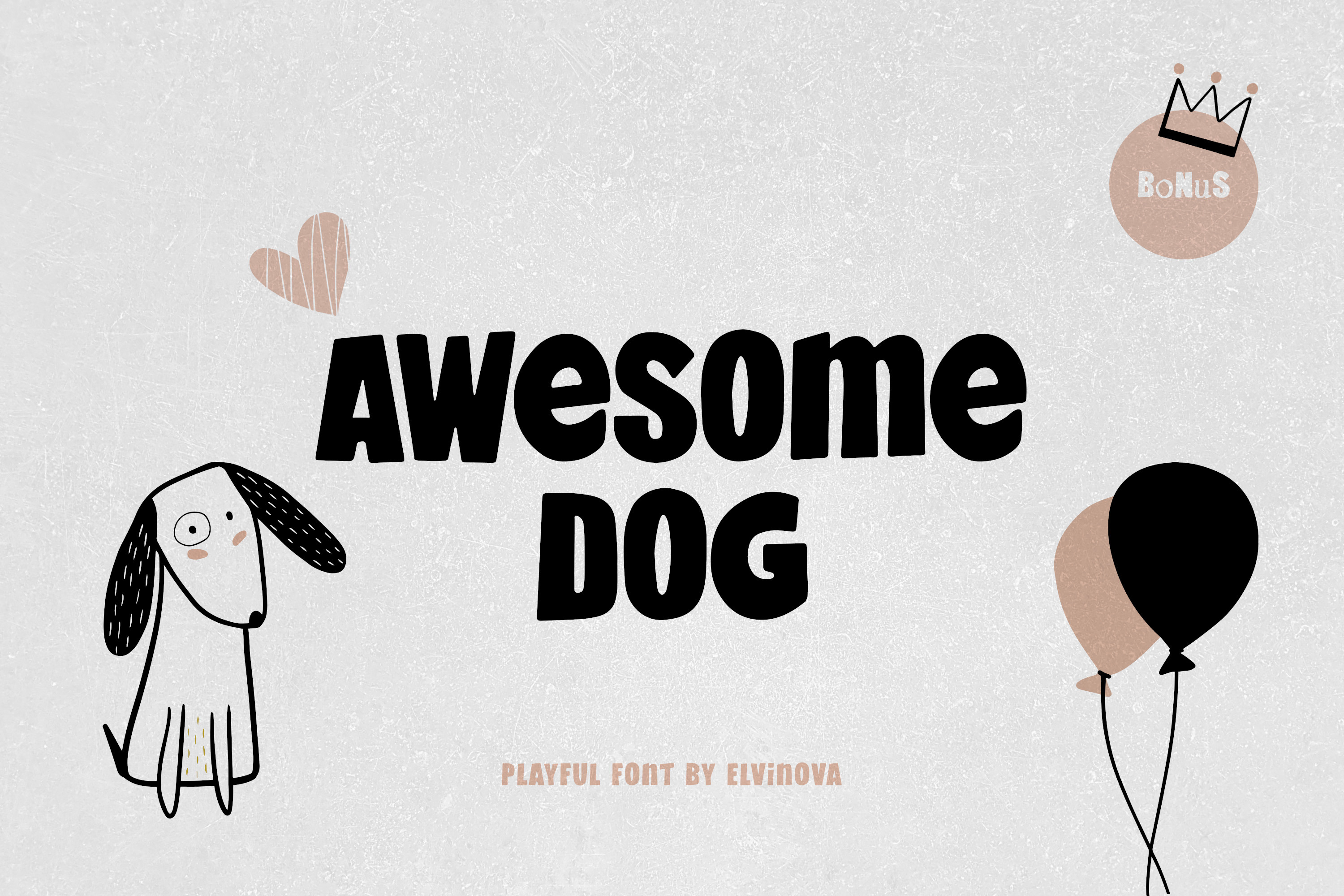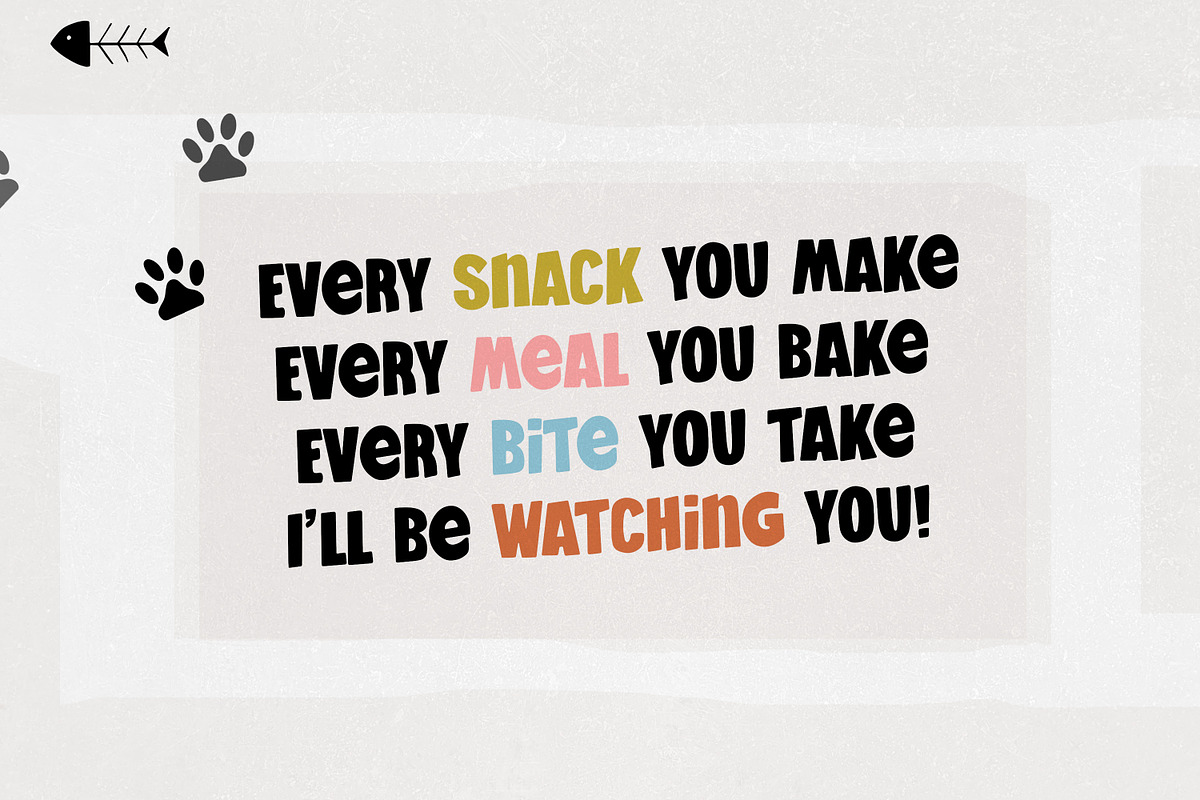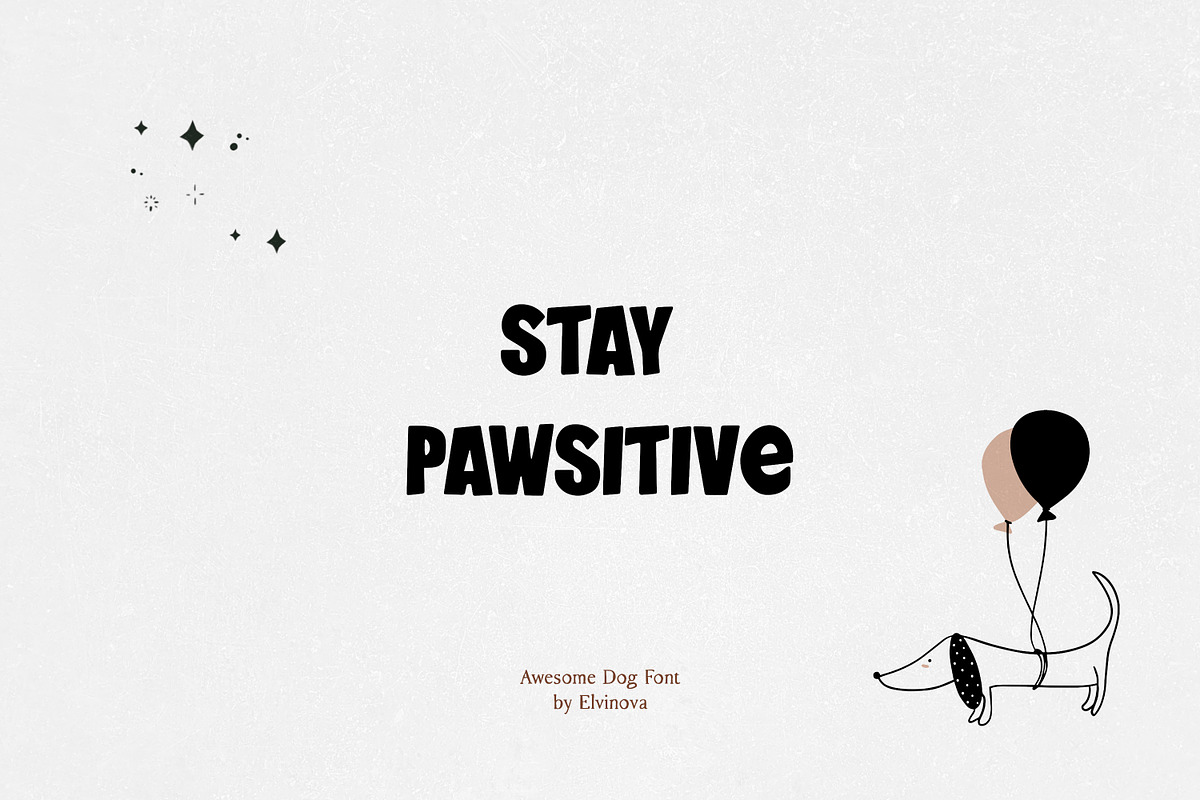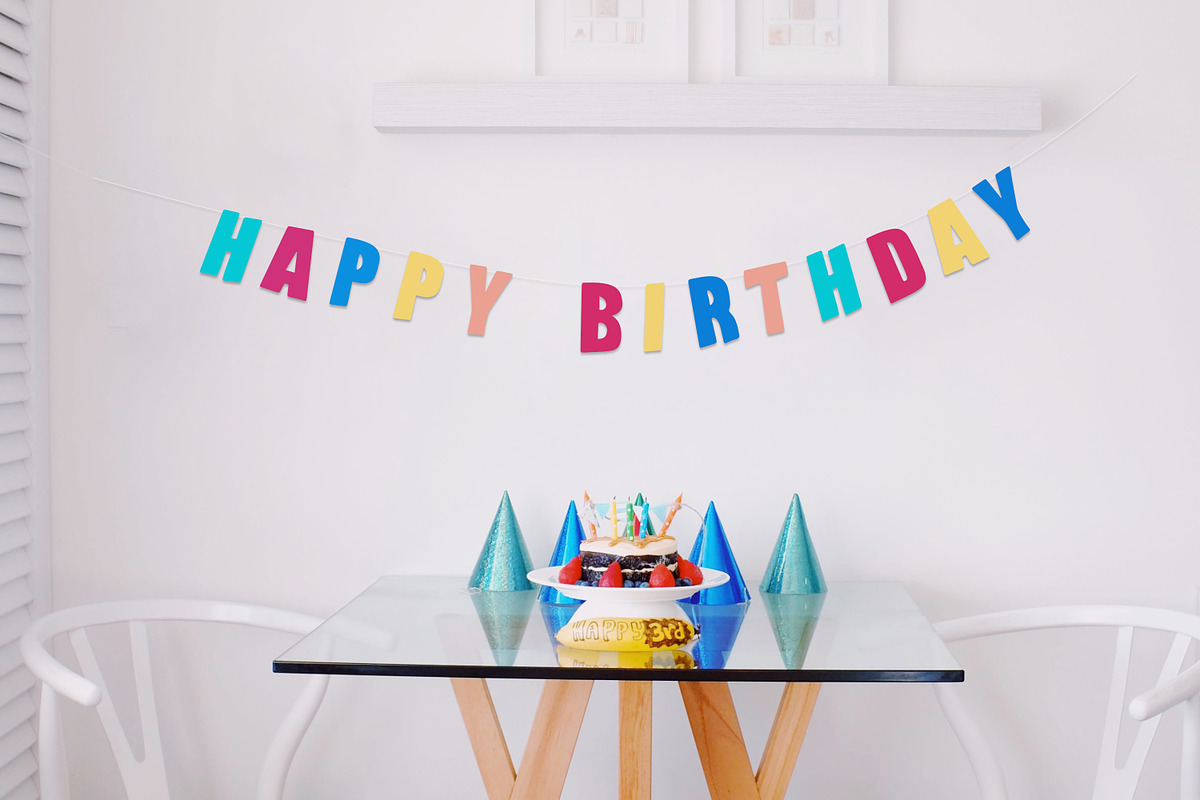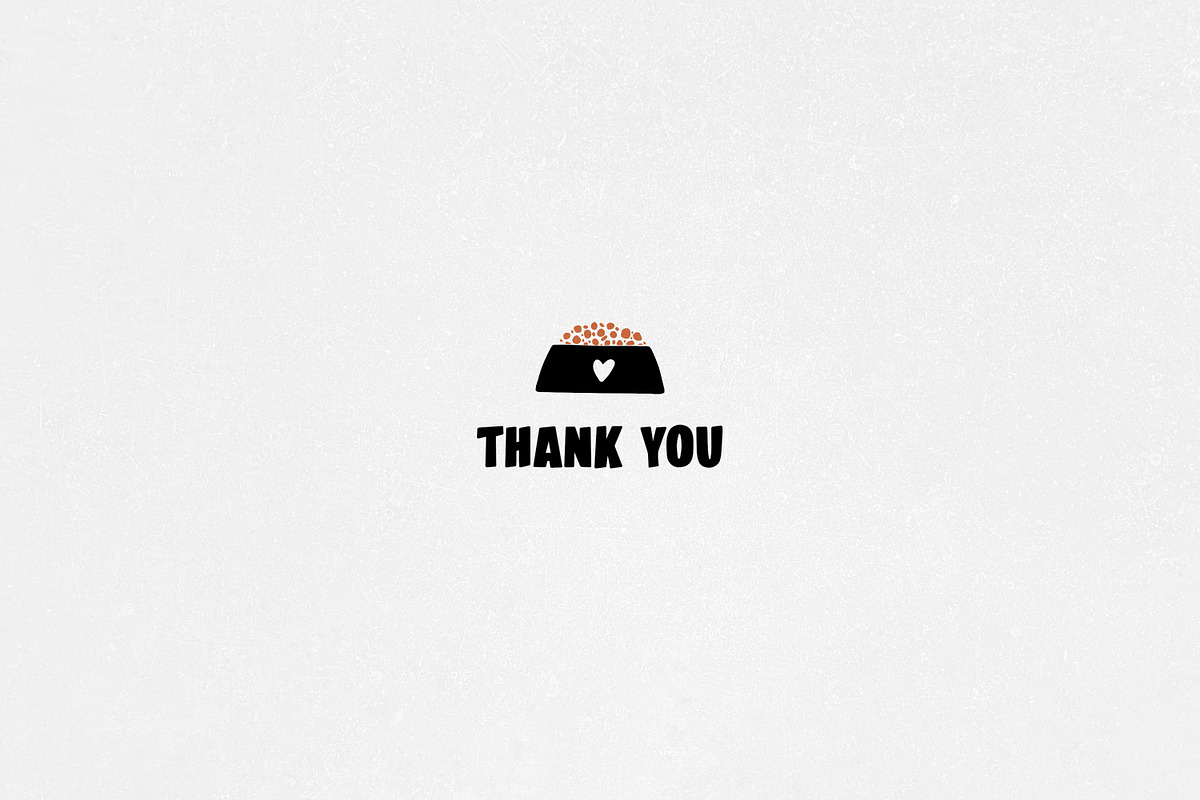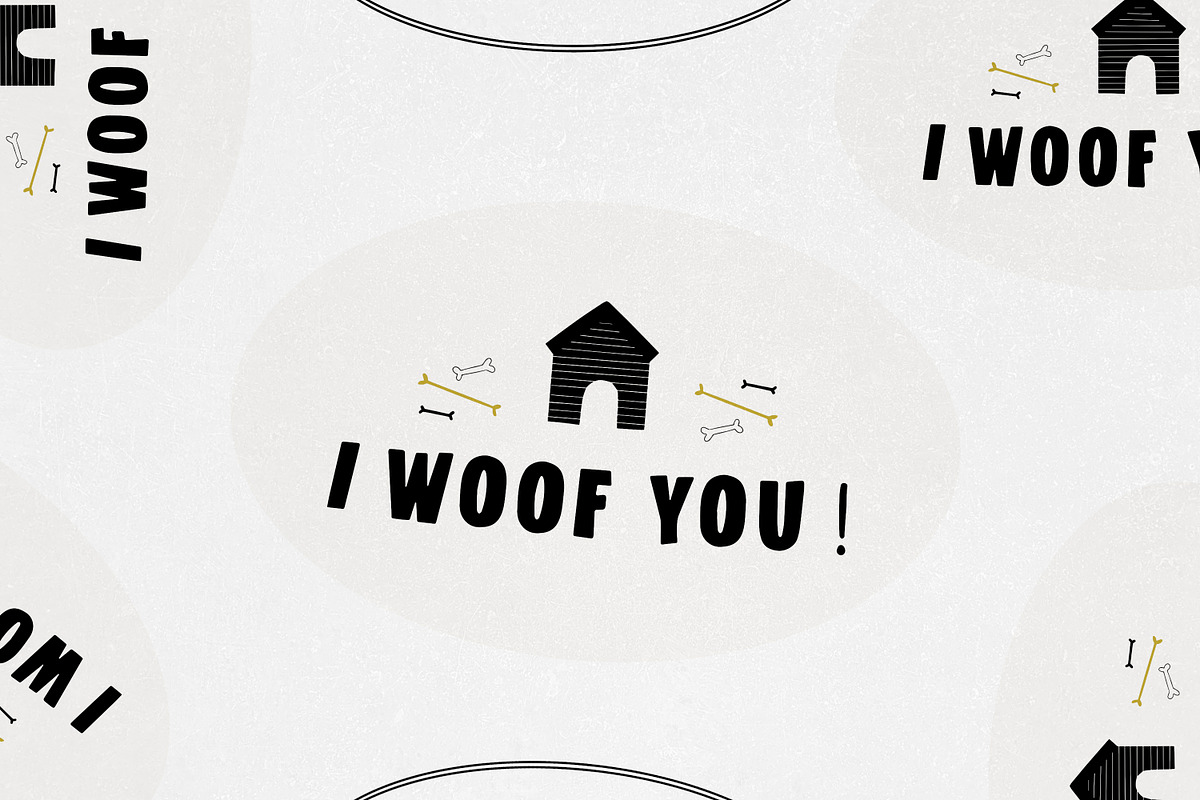
Awesome Dog | Playful Font
Awesome Dog is a playful font with friendly and a cheerful aesthetic. It comes with a funny bonus illustrations. It’s a perfect font for greeting cards, quotes, kids’ books, cartoons, posters, t-shirt designs, social media graphics, and more.